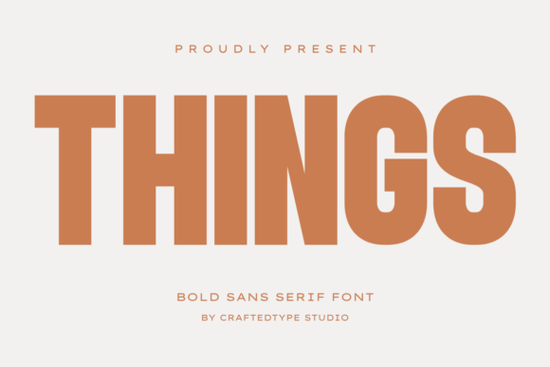
If you're looking for a font that combines sleek design with strong visual impact, the Things Font might just be what you need. This bold sans serif font is designed for creators who value clean aesthetics and versatile use. Whether you're working on Print On Demand projects like t-shirts, posters, or mugs, or designing film titles and modern packaging, Things Font can add a touch of elegance to your work.
Why Choose Things Font?
Things Font stands out with its tall, balanced letterforms and elegant spacing. This makes it perfect for a wide range of creative projects. Its versatility allows it to fit both professional and playful designs, making it a go-to choice for minimalist branding, crafting projects, and cinematic visuals. The font comes in OTF and TTF formats, and it's fully PUA encoded, so you can easily access all characters.
Perfect for Print On Demand Projects
One of the standout features of Things Font is its suitability for Print On Demand (POD) projects. If you're a POD seller, this font can help you create eye-catching designs for t-shirts, posters, mugs, and tote bags. The bold and clean style of Things Font ensures that your text stands out, making your products more appealing to customers.
Ideal for Branding and Logos
Branding and logos require fonts that are both distinctive and memorable. Things Font fits this bill perfectly. Its sleek and stylish design can help you create a strong brand identity. Whether you're designing a logo for a small business or a personal brand, this font can add a professional and modern touch to your branding efforts.
Enhance Your Film Titles and Packaging
Film titles and modern packaging often need fonts that can make a strong visual statement. Things Font, with its bold and elegant design, is an excellent choice for these purposes. It can help you create film titles that grab attention and packaging that stands out on the shelf. The font's versatility makes it suitable for both indie films and big-budget productions.
How to Use Things Font Effectively
To get the most out of Things Font, consider the following tips:
- Choose the Right Context: Use Things Font for projects where a bold and clean aesthetic is needed, such as modern branding, film titles, and minimalist designs.
- Combine with Complementary Fonts: Pair Things Font with complementary fonts to create a balanced and visually appealing design. For example, you can use a lighter, script font for subheadings or accents.
- Experiment with Spacing and Kerning: Adjust the spacing and kerning to fine-tune the look of your text. This can help you achieve the perfect balance between readability and style.
Final Thoughts
Things Font is a versatile and stylish option for designers, crafters, and print-on-demand sellers. Its clean and bold design makes it perfect for a variety of projects, from branding and logos to film titles and modern packaging. By following the tips mentioned above, you can effectively incorporate this font into your designs and create visually appealing and professional-looking projects.